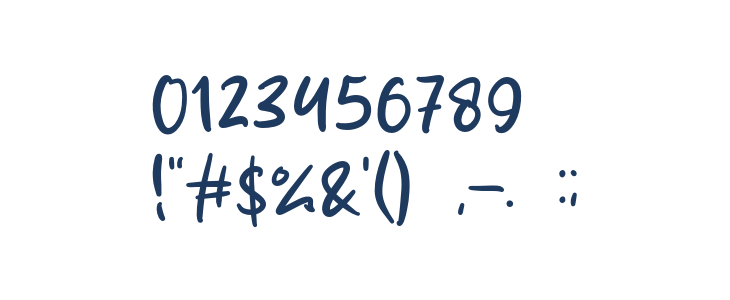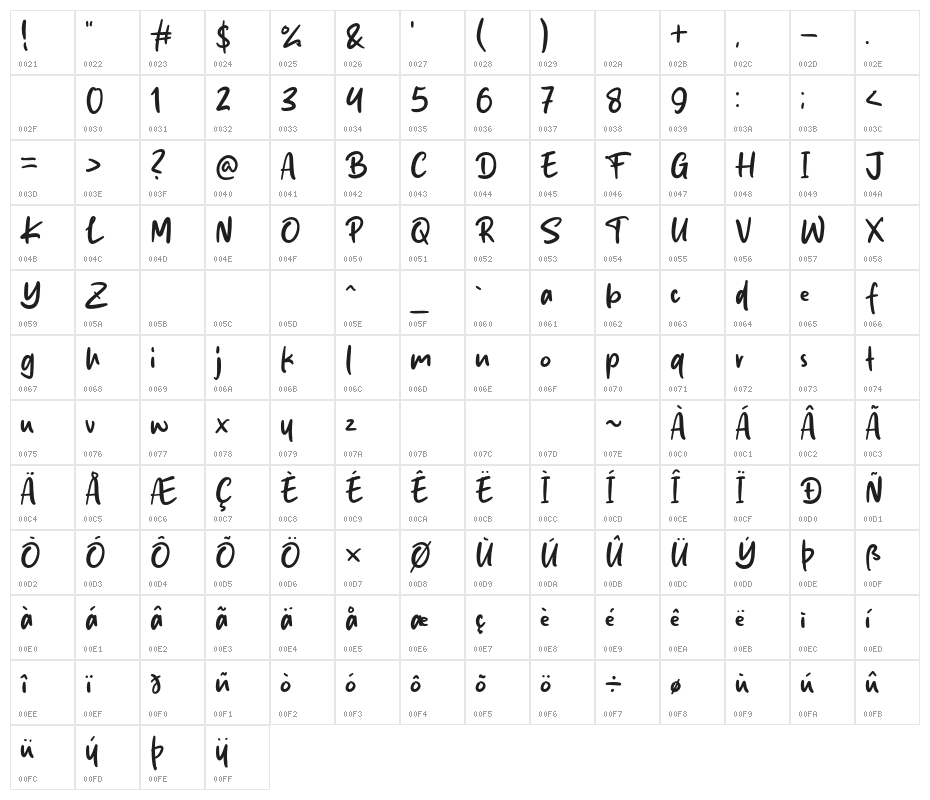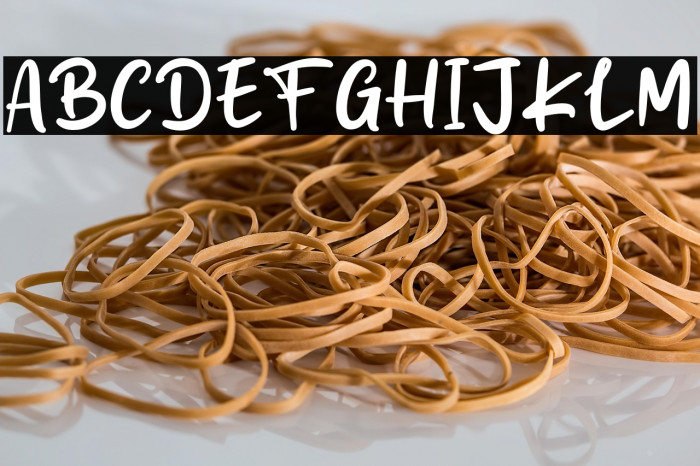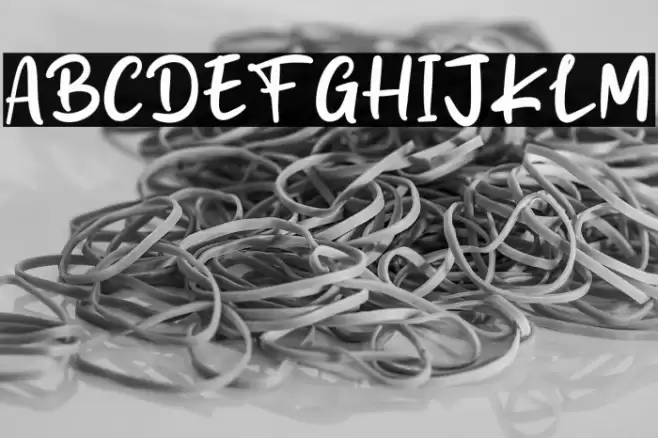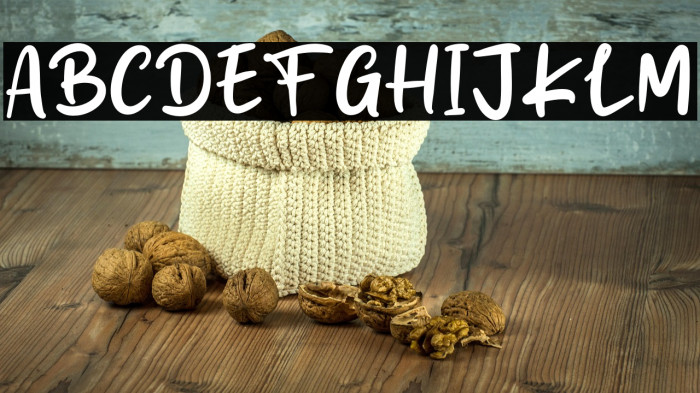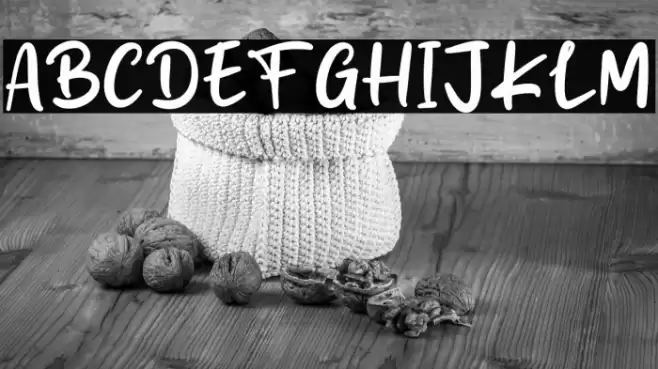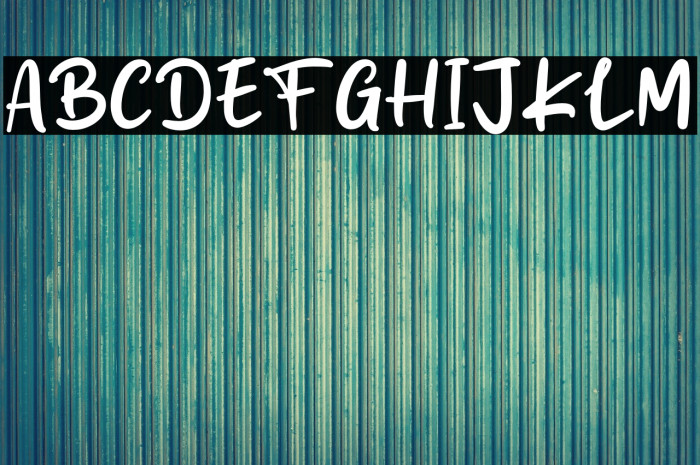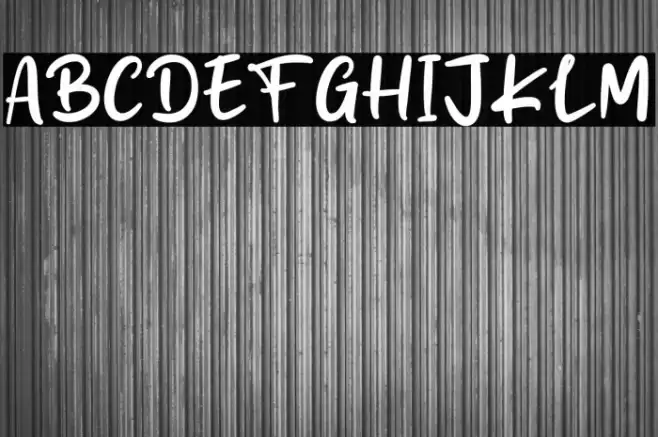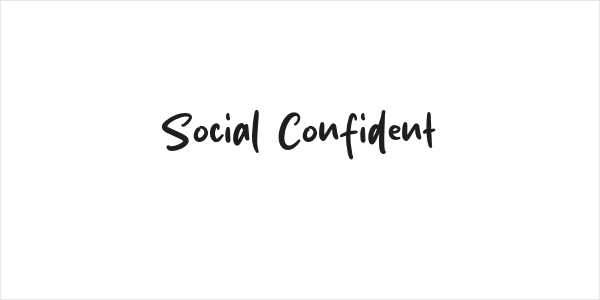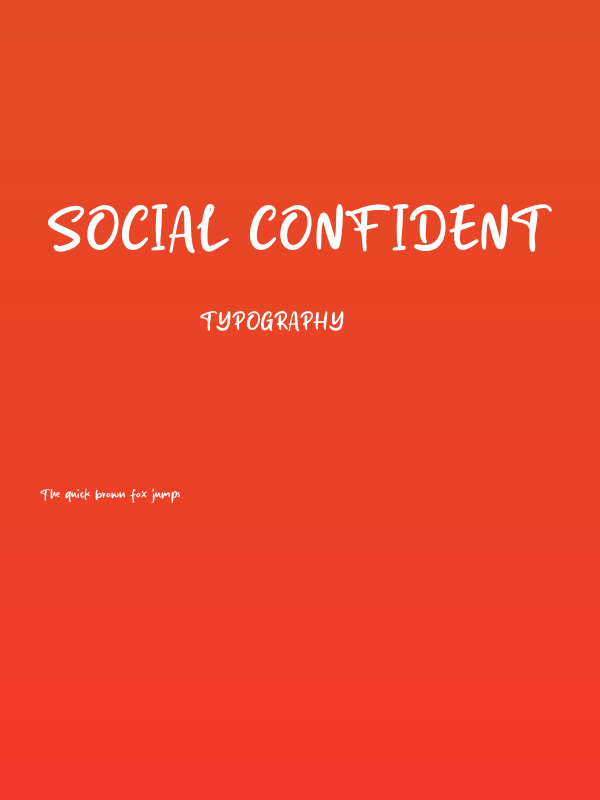
Social Confident Font
Social Confident Description
This font exhibits a lively and informal handwritten style, characterized by its bold and playful appearance. The letters are slightly slanted, giving it a dynamic and energetic feel. The strokes are thick and consistent, contributing to a bold presence on the page. The uppercase and lowercase letters maintain a cohesive style, with rounded edges and a casual flow. The numerals and special characters are designed to match the overall aesthetic, ensuring a harmonious look across all text elements. This font is ideal for projects that require a personal touch or a sense of approachability.
| Proposed Projects | Ideal for greeting cards, social media graphics, personal branding, and playful invitations. |